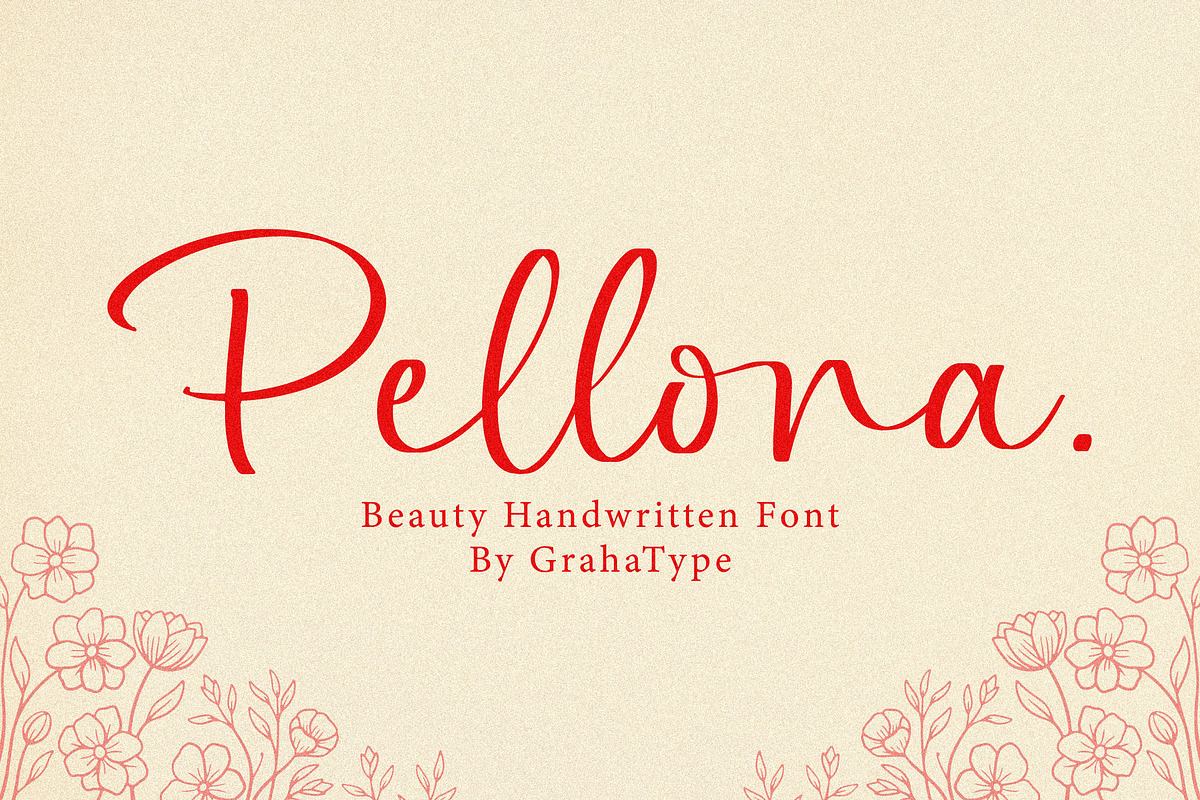
Pellona - Beauty Handwritten Font Free Download is an elegant and graceful handwritten typeface designed to add a personal and sophisticated touch to your designs. With its smooth, flowing strokes and artistic feel, this font is perfect for wedding invitations, branding, logos, greeting cards, and any project that requires a delicate, handwritten style.
The font's refined, yet casual design makes it ideal for conveying warmth and elegance, while maintaining readability. Whether you're creating a romantic brand, crafting personalized messages, or working on a creative project, Pellona brings a beautiful, bespoke feel to your typography.